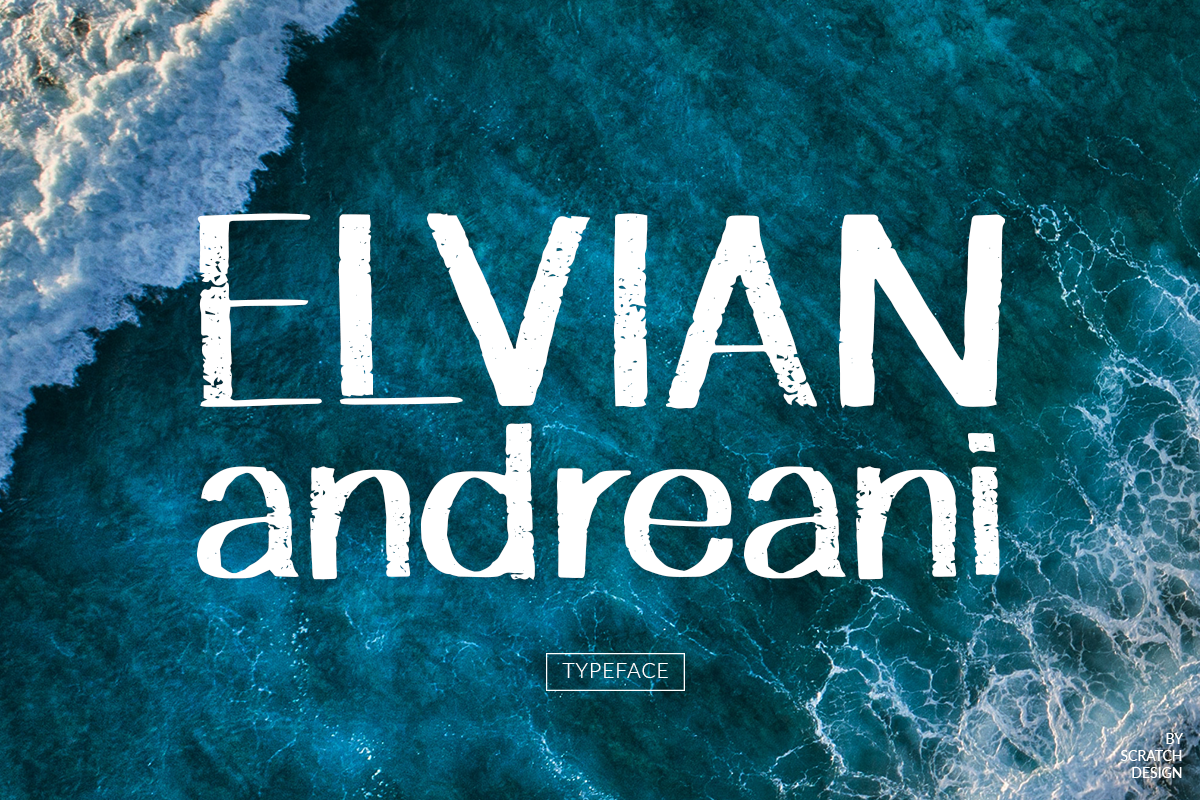
Elvian Andreani
Elvian andreani is a handwritten font with a marker style. This font made for a casual design theme like summer vibes, sports, beverage, quote, novel, book, packaging, etc. This font have an authentic texture inside, and make this font more look vintage and give more unique touch.Feature:
• Number
• Punctuation.
• Multilingual Support (ÀÁÂÃÄÅÇDÐEÈÉÊËIÌÍÎÏNÑOØÒÓÔÕÖUÙÜÚÛWYÝŸỲŸÆŒßÞþ)